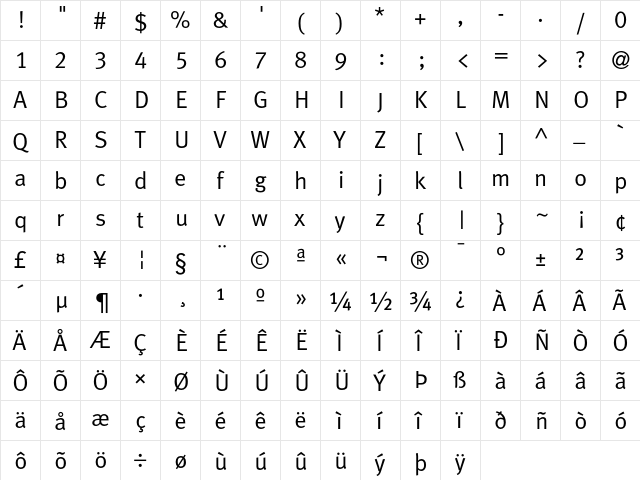
MetaKorrespondenz Roman
MetaKorrespondenz is a composed and adaptable typeface that performs quietly and consistently across a wide range of design contexts.
Pro Tip: Pair MetaKorrespondenz with a font of contrasting weight or personality to build a more expressive typographic hierarchy.